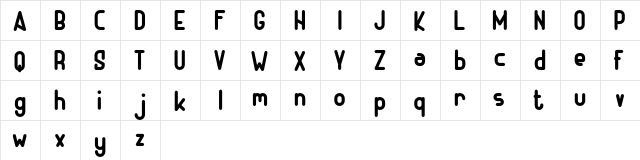
ADHE Sans Bold FREE Bold
Design Context for ADHE Sans Bold FREE Typeface
ADHE Sans Bold FREE is a composed and adaptable typeface that performs quietly and consistently across a wide range of design contexts. Its bold stroke weight gives it real presence on the page.